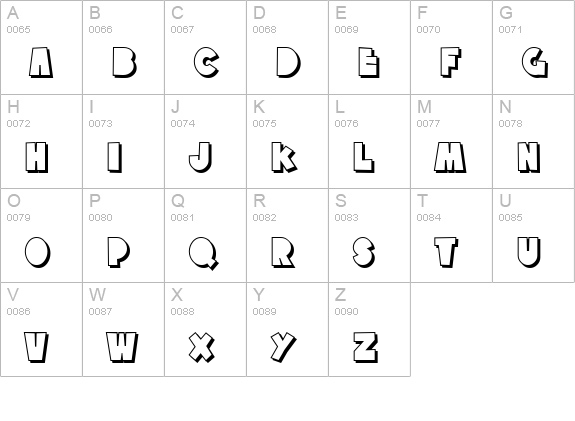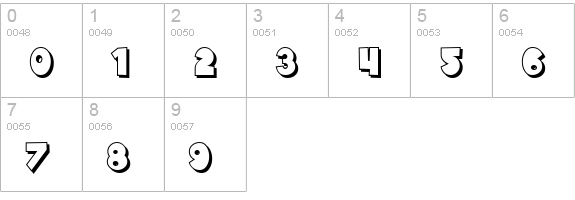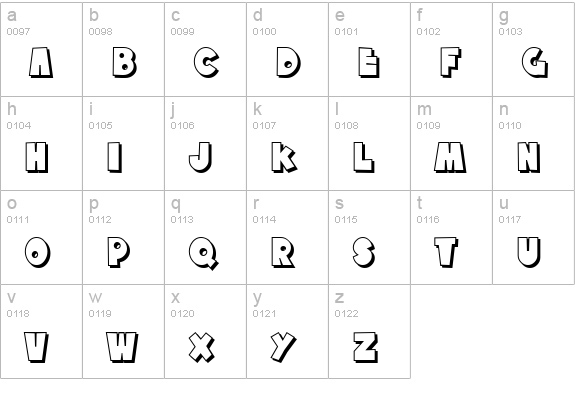
SF Tattle Tales Shadow Font Details
Introducing SF Tattle Tales Shadow font, a captivating and enigmatic typeface that will transport your designs into a realm of mystery and intrigue. With its unique shadow effect, this font adds depth and dimension to your text, giving it a striking and unforgettable appearance. SF Tattle Tales Shadow font is the perfect choice for those seeking to infuse their projects with a touch of the unknown. Whether you're working on a poster, logo, or any other design, this font will surely capture attention and leave a lasting impression on your audience. The free availability of SF Tattle Tales Shadow font makes it even more enticing. Now, you can enhance your designs without breaking the bank. Simply head over to FontsMarket.com and download this remarkable font, completely free of charge. Embrace the intrigue and allure that SF Tattle Tales Shadow font brings to your creations and let your imagination run wild. Let SF Tattle Tales Shadow font be your secret weapon in creating visually stunning and captivating designs. With its mysterious aura and freely accessible nature, this font is sure to elevate your projects to new heights. Don't miss out on the opportunity to add a touch of magic to your work. Download SF Tattle Tales Shadow font today and unlock the limitless possibilities it holds.